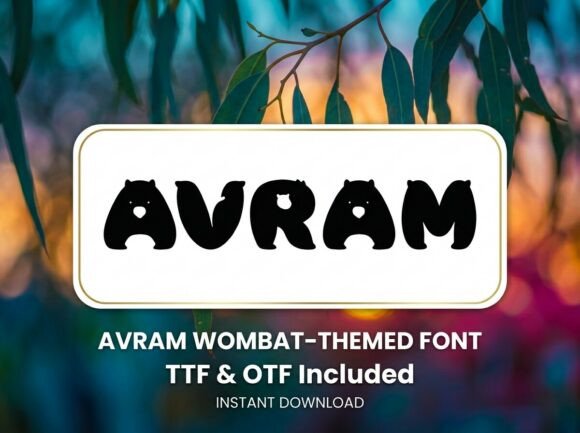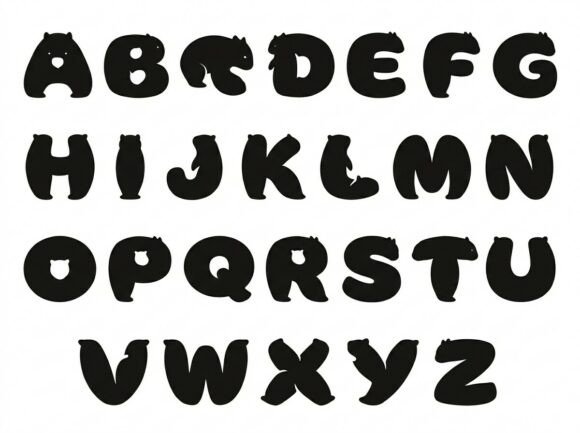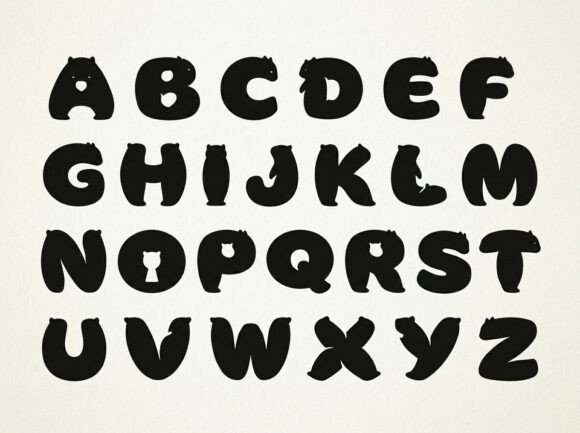
Introducing Avram Font: The Ultimate Avant-Garde Display Typeface
Are you a creator looking for a font that makes a statement? Do you want to add a touch of sophistication and uniqueness to your designs? Look no further than Avram Font, an avant-garde decorative display typeface engineered to be the focal point of any composition.
What Sets Avram Font Apart
Avram Font is characterized by its commanding visual personality and unique artistic flourishes, making it perfect for creators who refuse to blend in. This typeface was crafted with a strong, artistic soul, yet maintains a high-end, polished finish, making it suitable for luxury packaging, experimental editorial layouts, and a wide range of design applications.
Ideal Use Cases for Avram Font
Avram Font is ideal for a variety of design projects, including:
- High-impact headlines: Make a statement with Avram Font’s bold, eye-catching lettering.
- Signature logos & branding: Create a unique and memorable brand identity with Avram Font’s distinctive style.
- Conceptual packaging: Add a touch of luxury and sophistication to your packaging designs.
- Poster & social media design: Stand out on social media and create striking posters with Avram Font’s avant-garde style.
Important Note: All-Caps Display Typeface
Please note that Avram Font is an all-caps (uppercase only) display typeface. By omitting lowercase characters, the designer has focused entirely on the intricate craftsmanship of every individual letter, ensuring each one acts as a standalone work of art. This unique approach allows for a level of detail and polish that is unparalleled in traditional typefaces.
Benefits of Using Avram Font
Avram Font offers a range of benefits for designers and crafters, including:
- Instant recognition: Avram Font’s unique style ensures that your designs will stand out and be remembered.
- Flexibility: Use Avram Font for a wide range of design applications, from luxury packaging to experimental editorial layouts.
- High-quality craftsmanship: Every letter has been carefully crafted to ensure a level of detail and polish that is unmatched in traditional typefaces.
Tips for Using Avram Font Effectively
To get the most out of Avram Font, follow these tips:
- Use it sparingly: Avram Font is designed to make a statement, so use it sparingly to maximize its impact.
- Experiment with different colors and textures: Avram Font’s unique style lends itself well to experimentation with different colors and textures.
- Pair it with complementary fonts: Pair Avram Font with complementary fonts to create a cohesive and visually appealing design.
Avram Font is a game-changing display typeface that is sure to elevate your designs to the next level. With its commanding visual personality, unique artistic flourishes, and high-end polish, Avram Font is the perfect choice for creators who refuse to blend in. Whether you’re working on a luxury packaging project, an experimental editorial layout, or a social media design, Avram Font is the ultimate avant-garde display typeface.